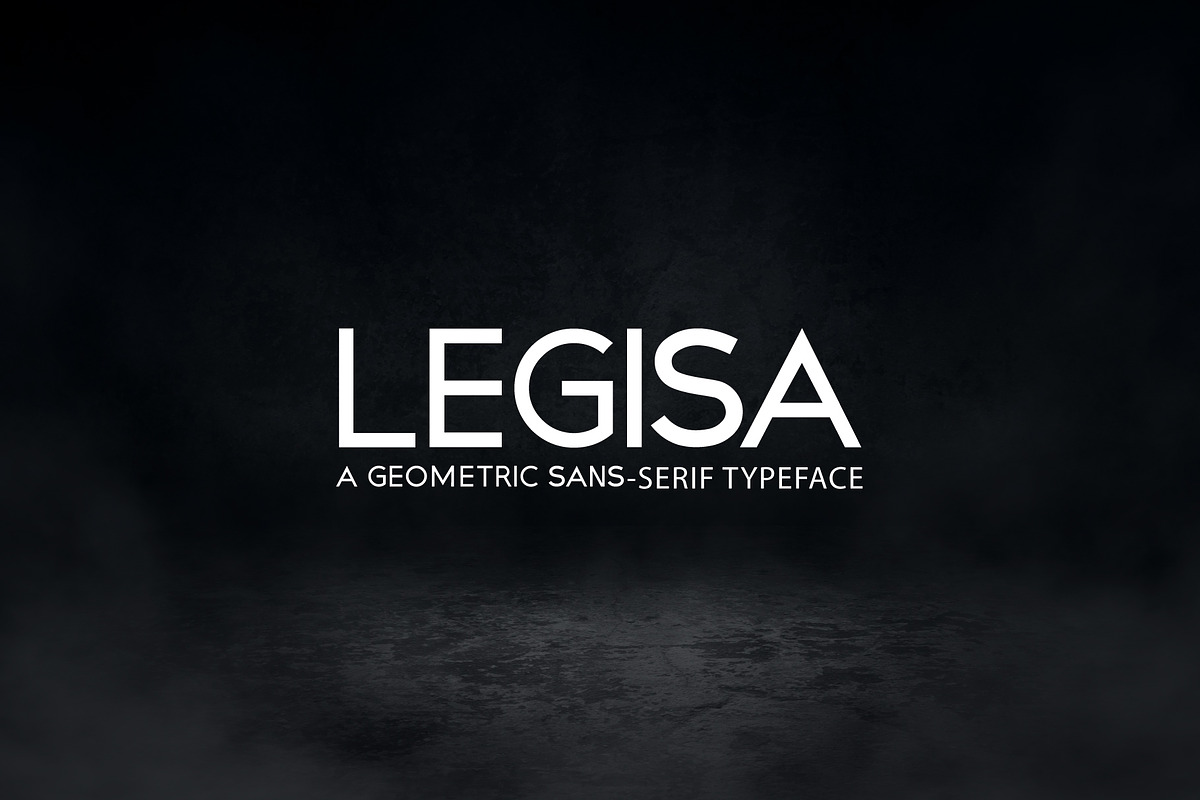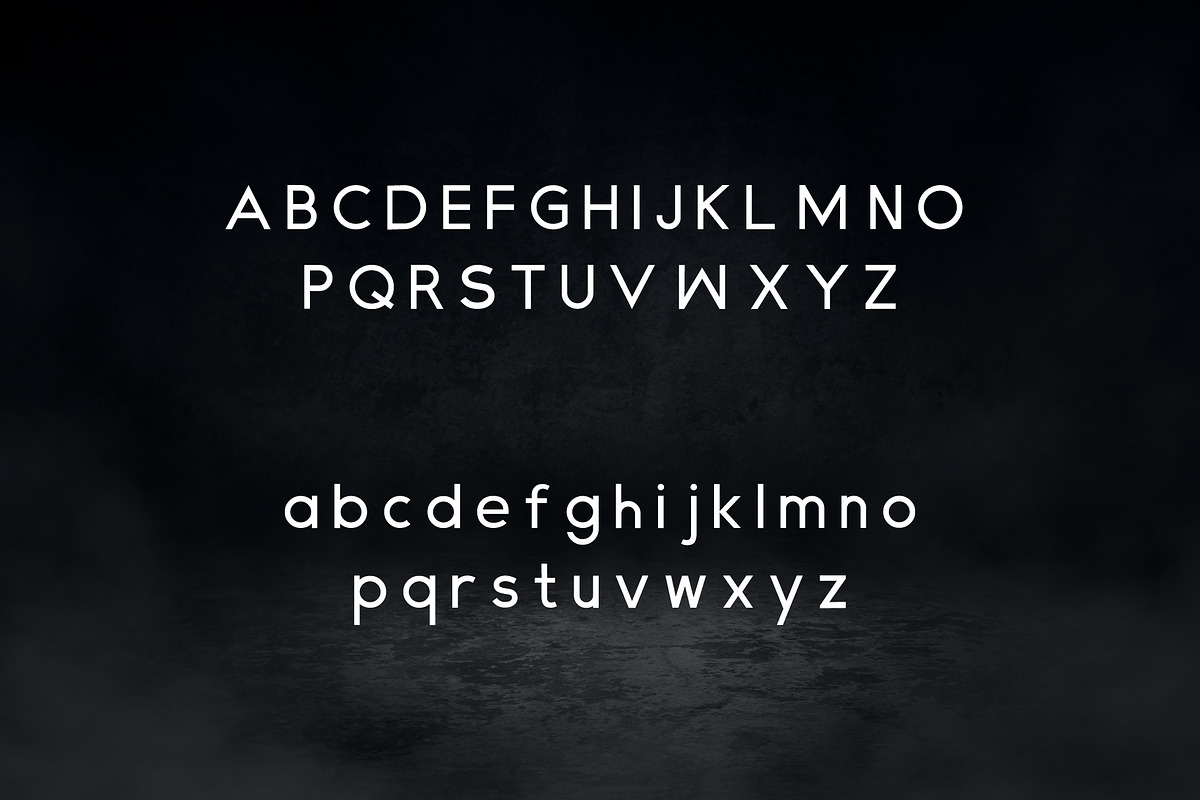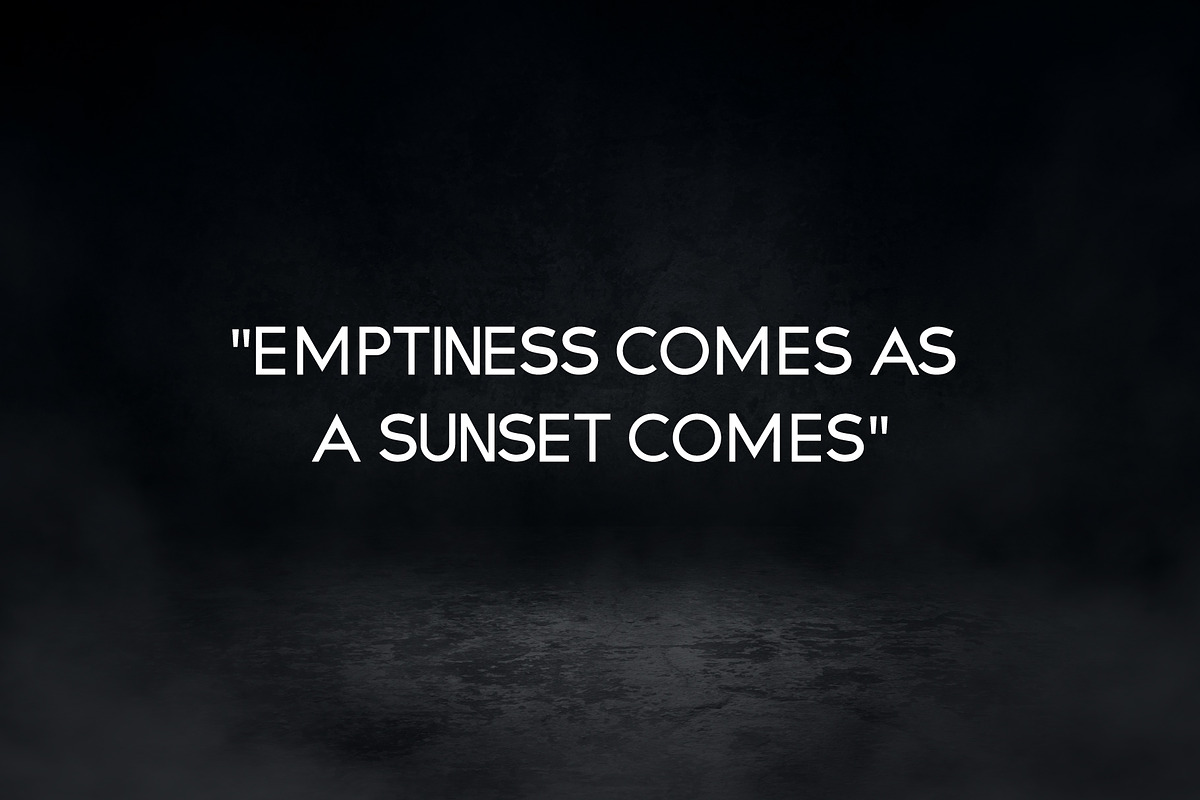
Legisa font
legisa font is a sans-serif font, crafted with geometric shapes and inspired by modern sans-serif typefaces. It's minimal design and diverse font styles cater to all kinds of typography and graphic design work.